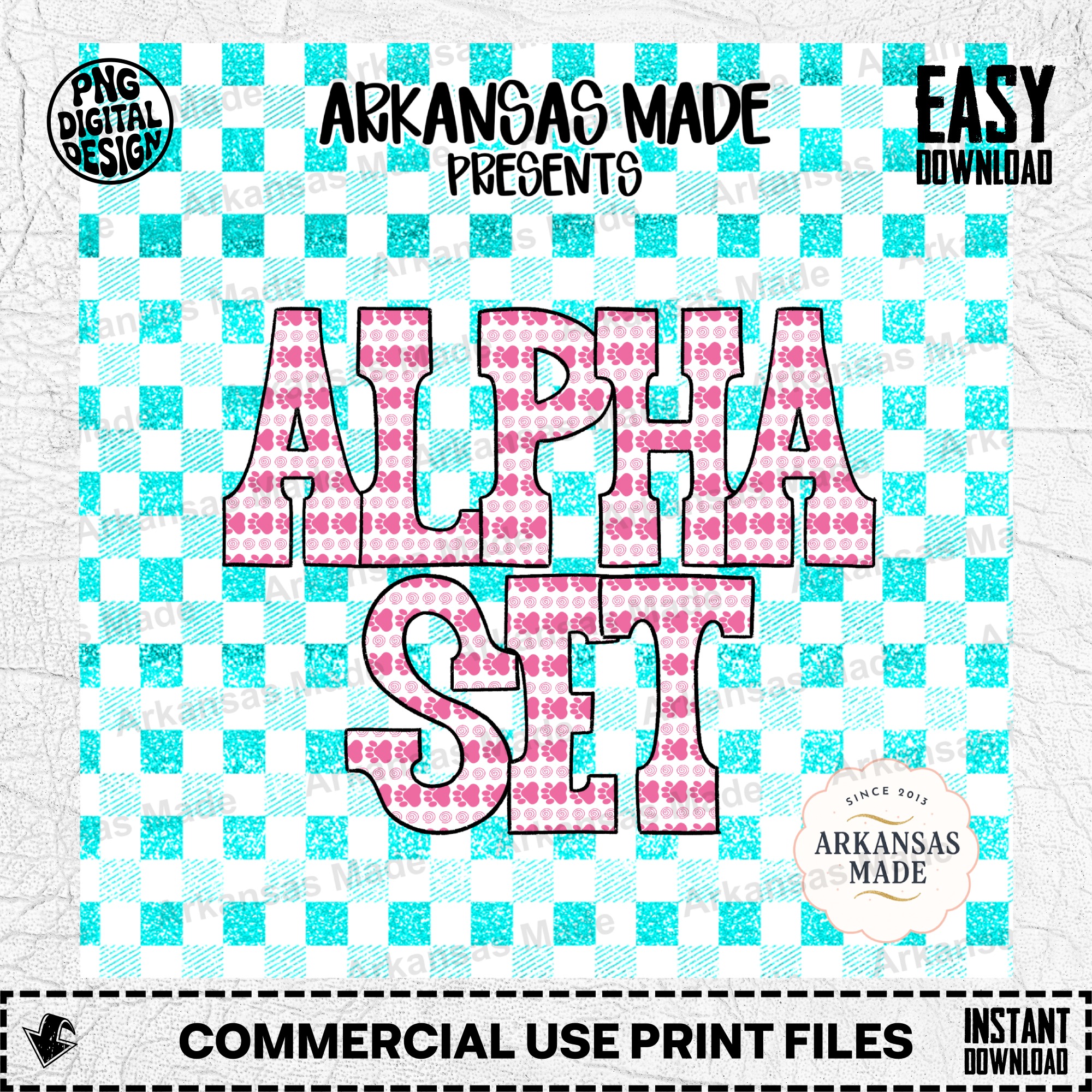
Add a touch of playful charm with this Paw Print Alpha PNG Set! Perfect for dog moms and crafters, featuring cute pink letters for digital projects. Unleash your creativity with this whimsical digital alphabet. Each letter is adorned with adorable pink paw prints and sweet swirls, making it ideal for personalized gifts, apparel, and pet-themed decor. A delightful choice for animal lovers, DIY enthusiasts, and small business owners looking to create unique merchandise for pet birthdays or everyday joy.